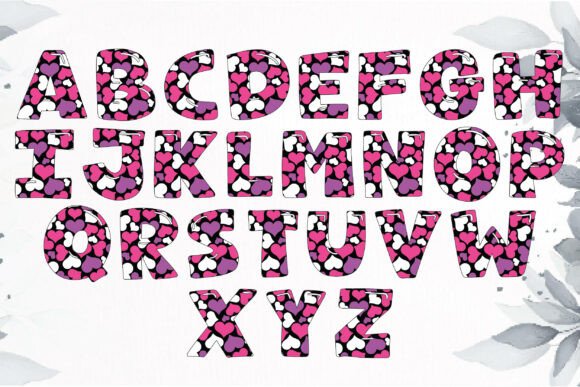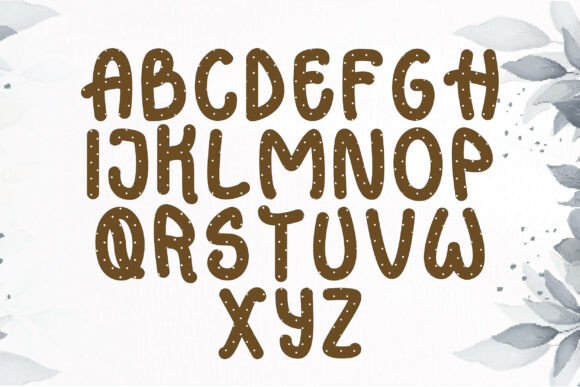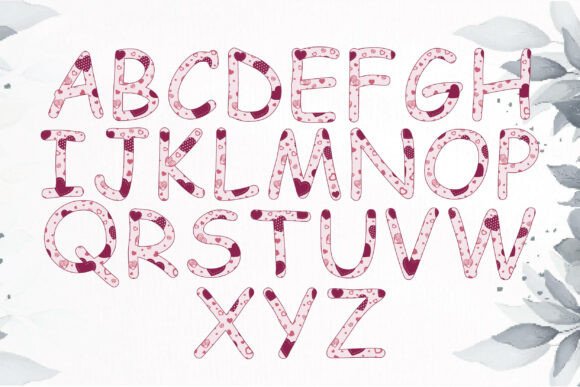
Introduction to Colorful Valentine Pack Font
πŸ’– Colorful Valentine Alphabets Pack Add bold color and romantic charm to your designs with this beautiful Colorful Valentine Font Bundle.
This unique collection combines rich berry tones, playful preppy hearts, and vibrant Valentine-inspired colors to give your projects a sweet, stylish, and eye-catching look Perfect for Valentine’s Day cards, planners, stickers, mugs, t-shirts, scrapbooking, party decorations, classroom crafts, and social media graphics.
Key Features of Colorful Valentine Pack Font